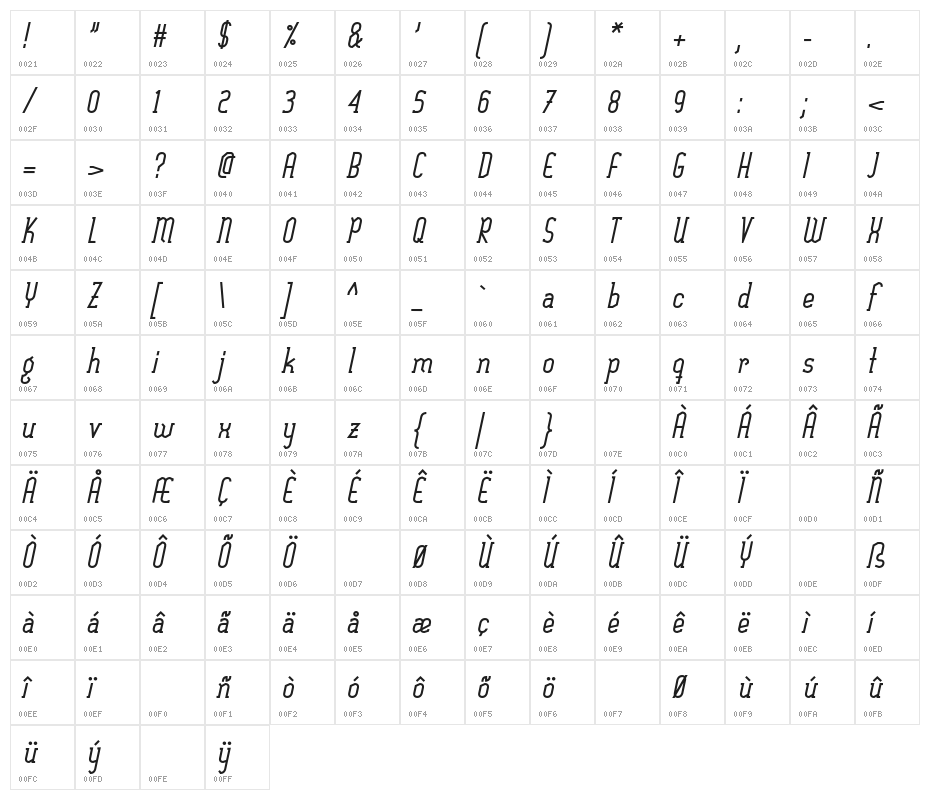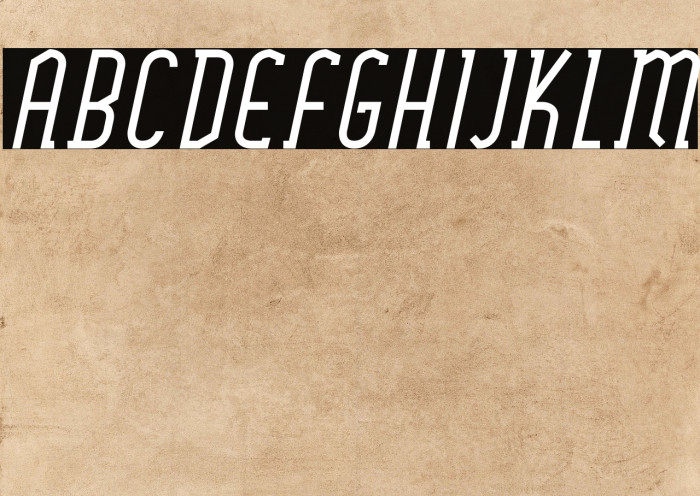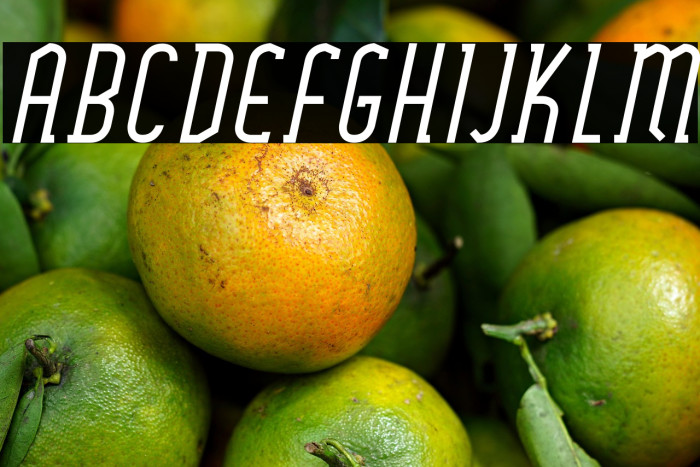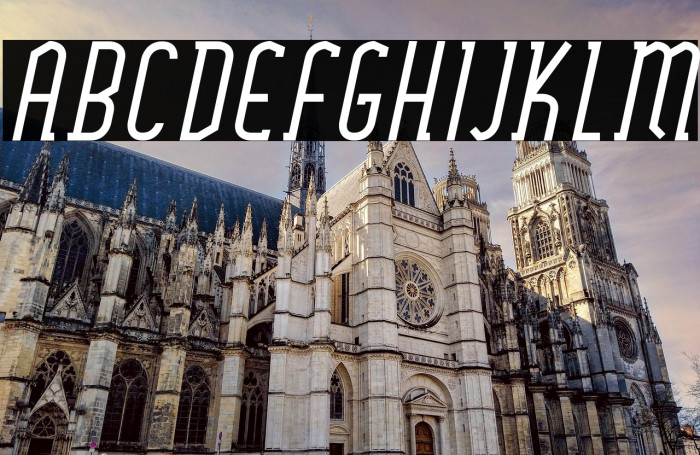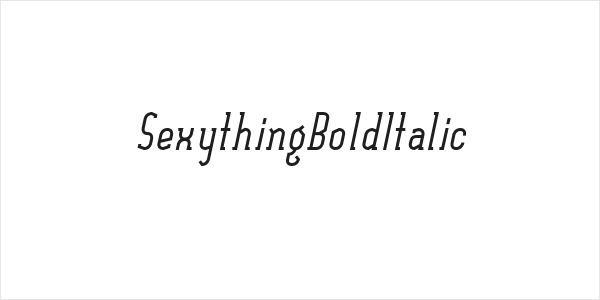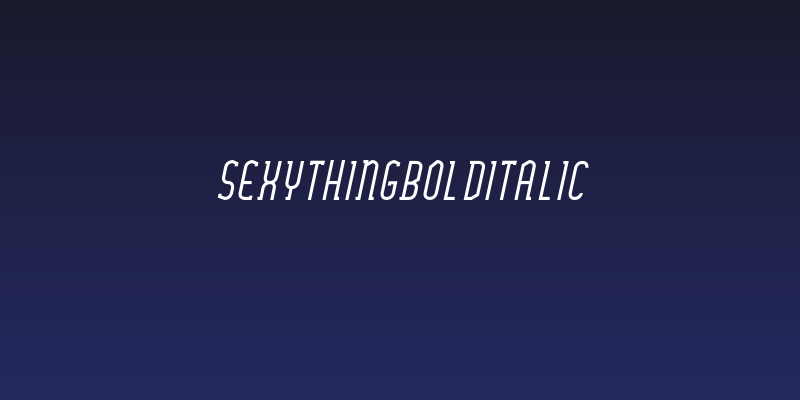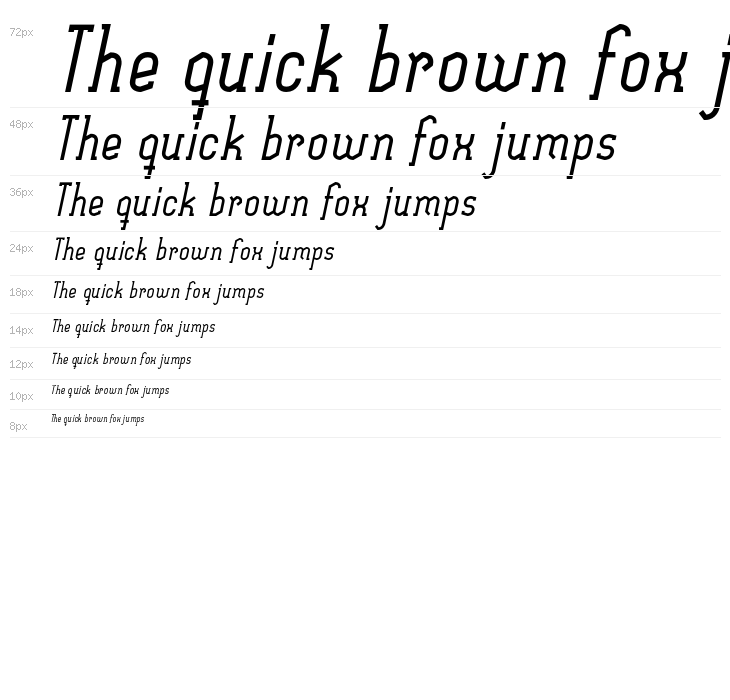
SexythingBoldItalic Font
SexythingBoldItalic Description
This font exhibits a bold and italicized style with a modern and slightly edgy appearance. The uppercase letters are tall and narrow, featuring sharp angles and a slight slant that adds dynamism and movement. The lowercase letters maintain a consistent style, with some unique characteristics such as the distinctive tails on letters like 'g' and 'y'. The numerals are clear and legible, matching the overall aesthetic with their angular forms. Special characters are well-integrated, maintaining the font's cohesive look. The font's boldness and italic nature make it stand out, suitable for attention-grabbing designs.